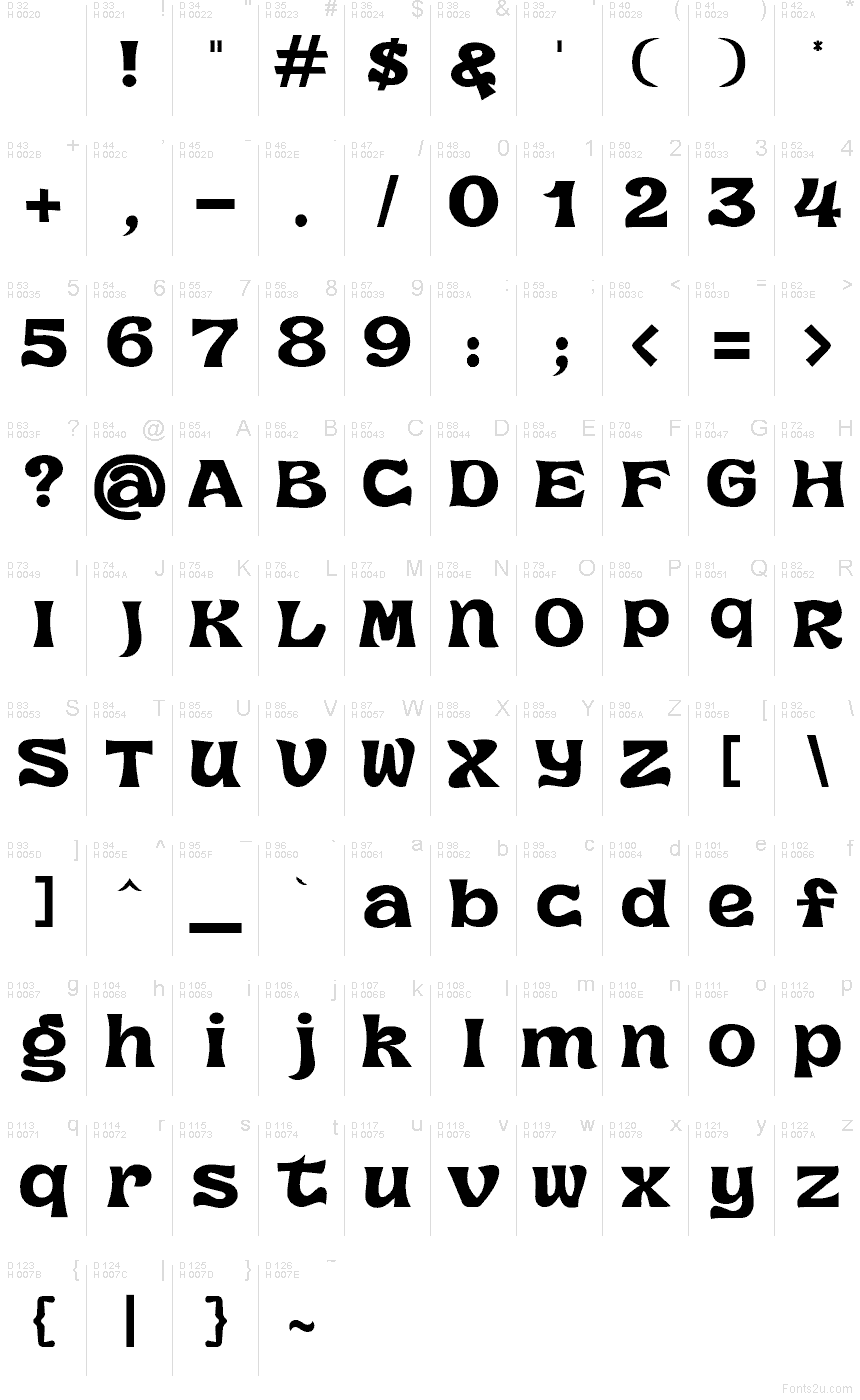
Magic Tribes
Magic Tribes font by BlackFridayFont FMF is a free groovy display typeface with a bold, bouncy rhythm that feels hand-painted and a little wild. The chunky curves swell and squeeze like wet ink spreading on paper, while the tight, snug spacing keeps every word looking like a compact, happy badge. There’s a playful, tribal pulse in the letters that makes even short words feel like a logo.
Using Magic Tribes, your headlines instantly pick up a festival energy that’s hard to fake. This free font shines on event posters, kids’ products, party invitations, music or game titles, bold social posts, and quirky packaging. Set it large for maximum impact, then pair it with a clean geometric sans in smaller text to keep your layouts readable while the groovy forms steal the spotlight.